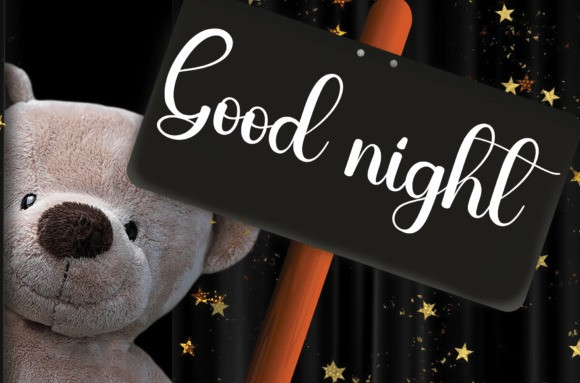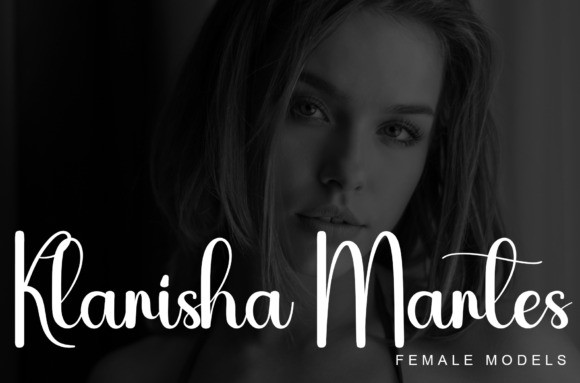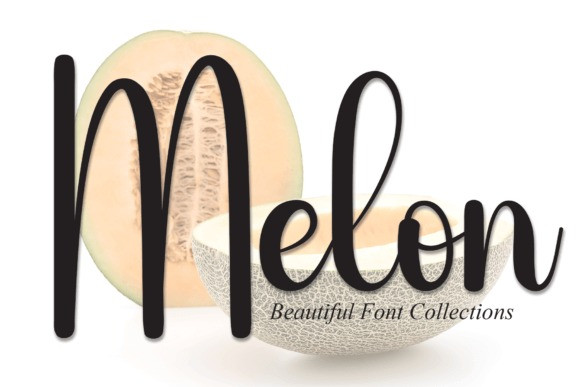
Melon Script Font
Melon Script Font, is a sweet and friendly handwritten font. Cute and fun, this font is ideal for writing wedding invitations, cards, or any other design that might need a fun touch!